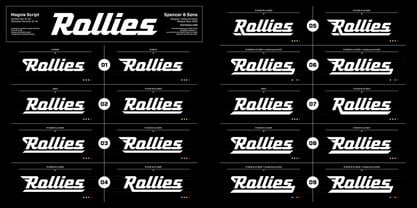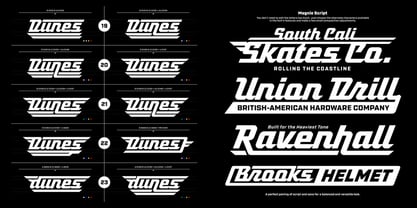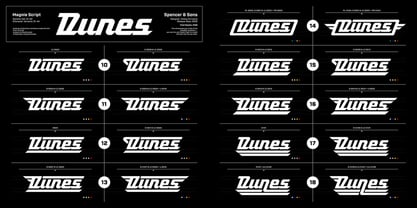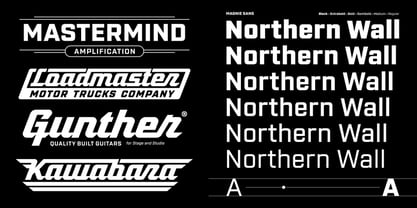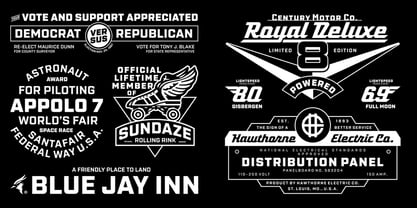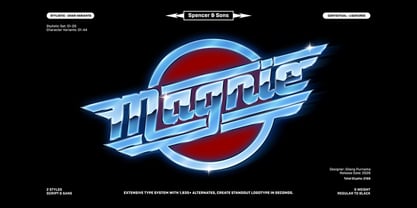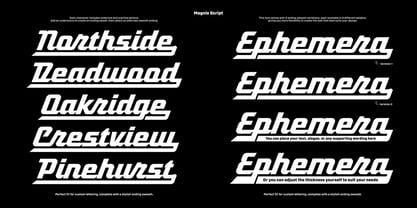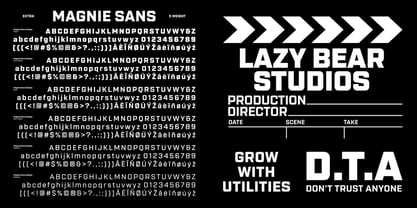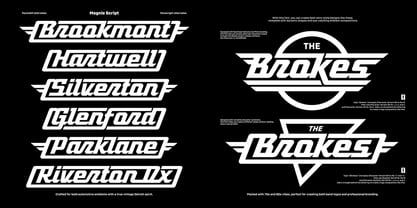
Magnie
by Spencer & Sons Co.
The Magnie Font Family was designed by Gilang Purnama Jaya and published by Spencer & Sons Co.. Magnie contains 7 styles and family package options. More about this family
Magnie is a bold retro font duo made for designers who want their logos, emblems, and brand visuals to feel instantly nostalgic, expressive, and full of character. Combining a distinctive retro script with a clean sans serif companion, Magnie gives you a complete type system for building standout logotypes, band logos, amplifier branding, car emblems, packaging, labels, posters, apparel, merch, and social media graphics.
At the heart of the family is Magnie Script, a striking display font packed with around 1,900 alternate glyphs, giving you the freedom to create custom-looking lettering, dynamic wordmarks, vintage-style headlines, and expressive logo compositions with ease. Paired with it is Magnie Sans, a flexible sans serif family designed to support the script perfectly—ideal for secondary text, layouts, taglines, and complete branding systems.
Whether you’re creating a retro logo, a music-inspired identity, a bold poster, or a vintage-style product label, Magnie brings together personality, usability, and a rich set of typographic options in one powerful font duo.
Designers: Gilang Purnama Jaya
Foundry: Spencer & Sons Co.